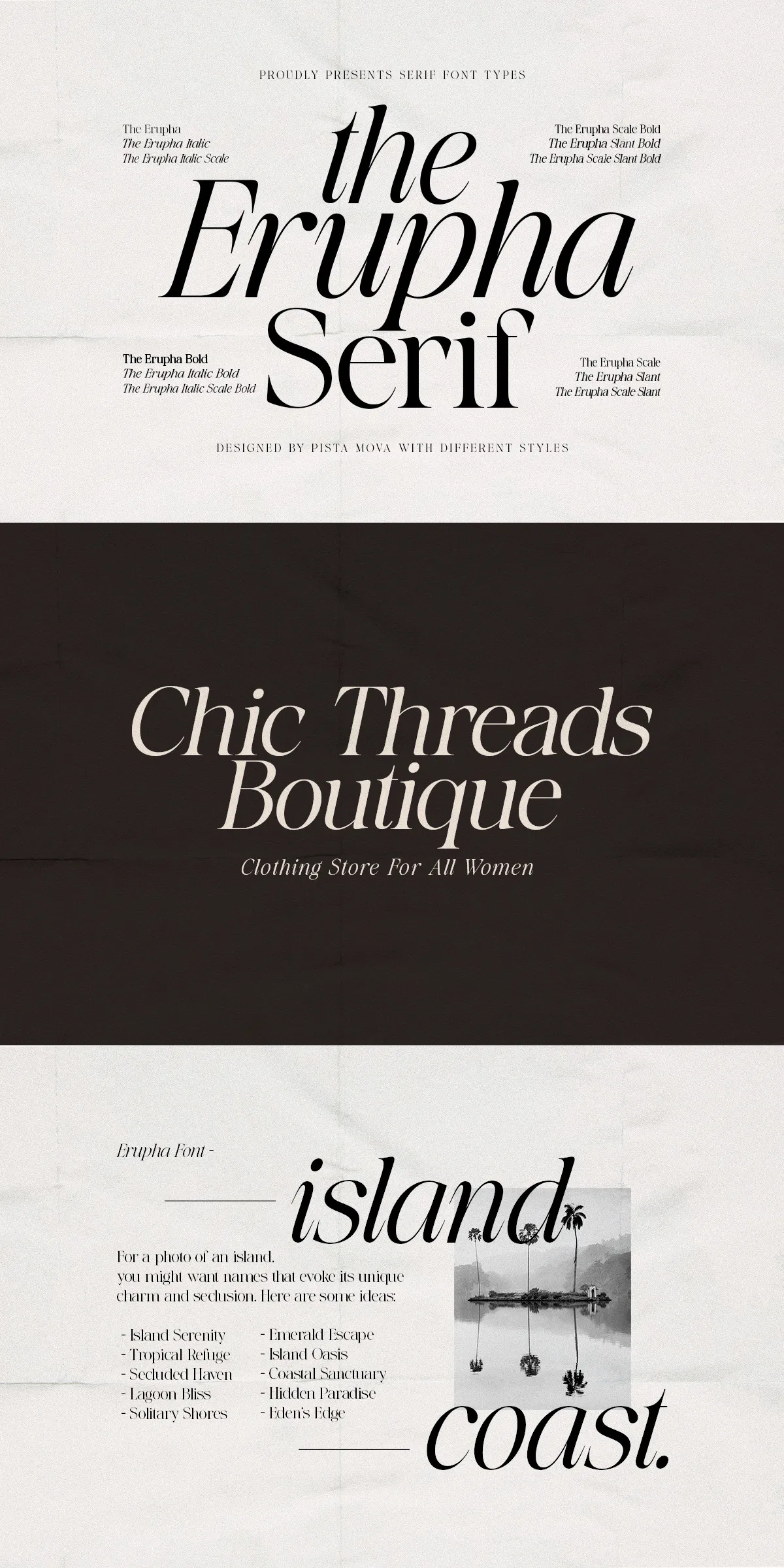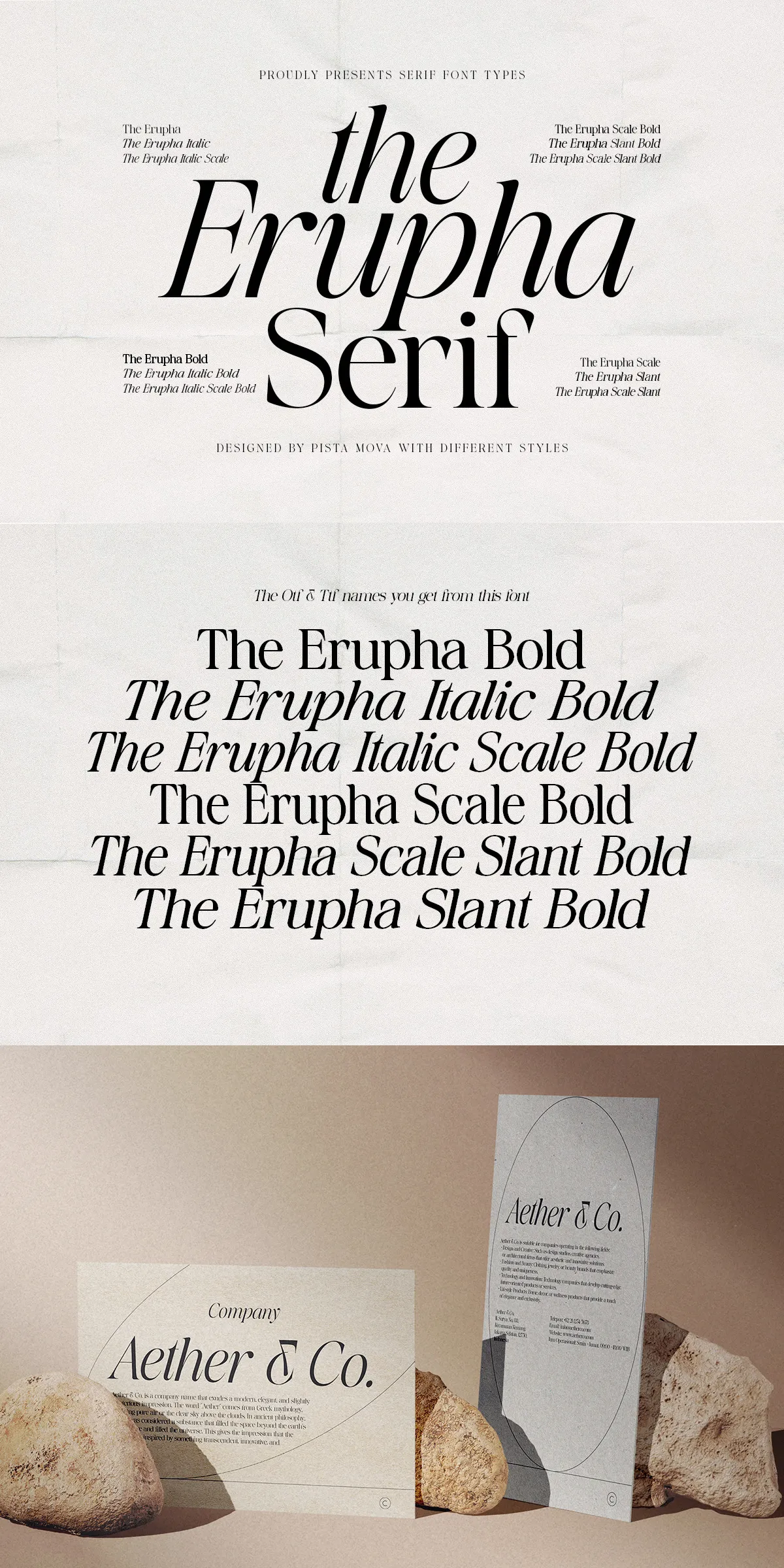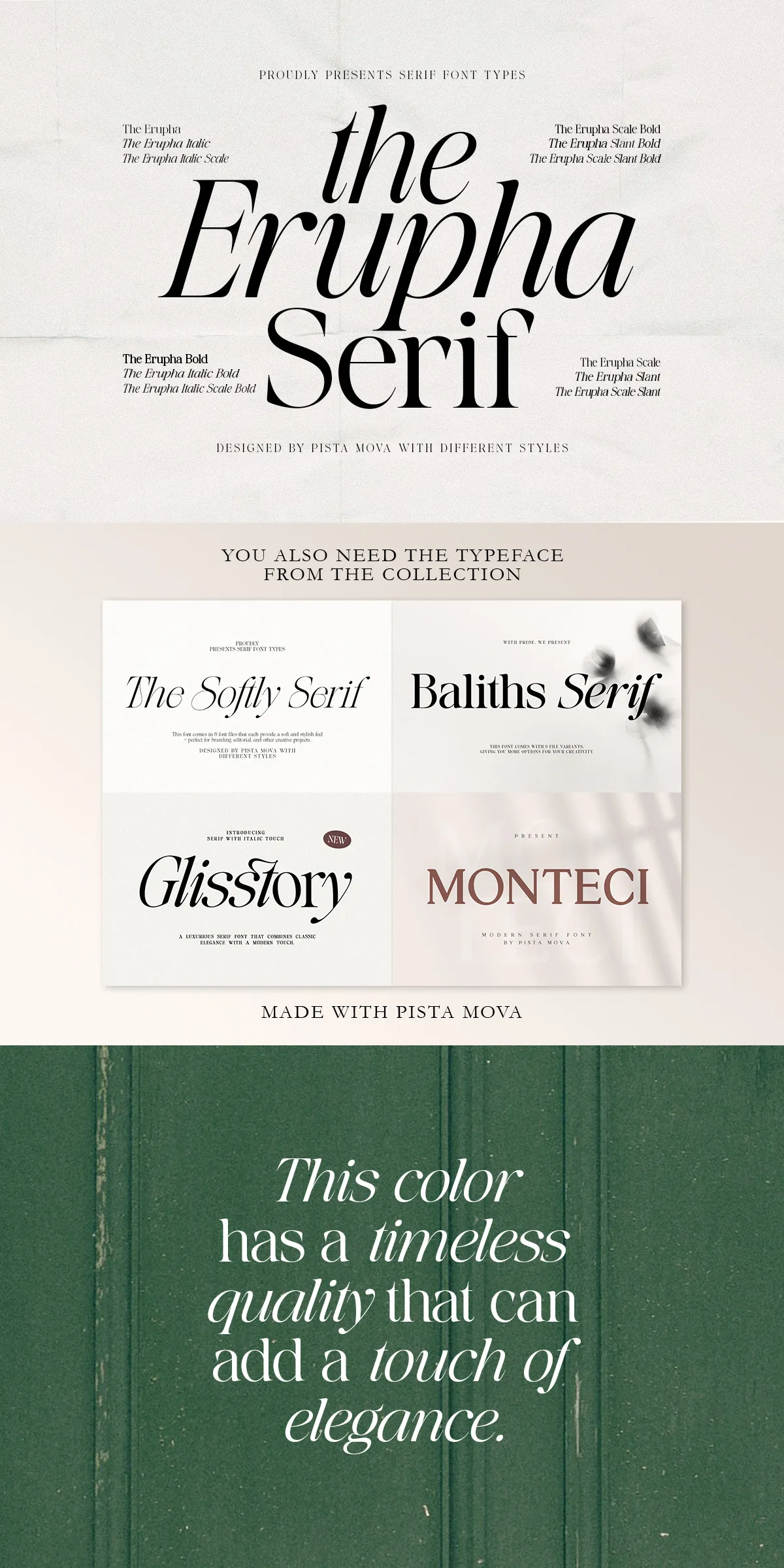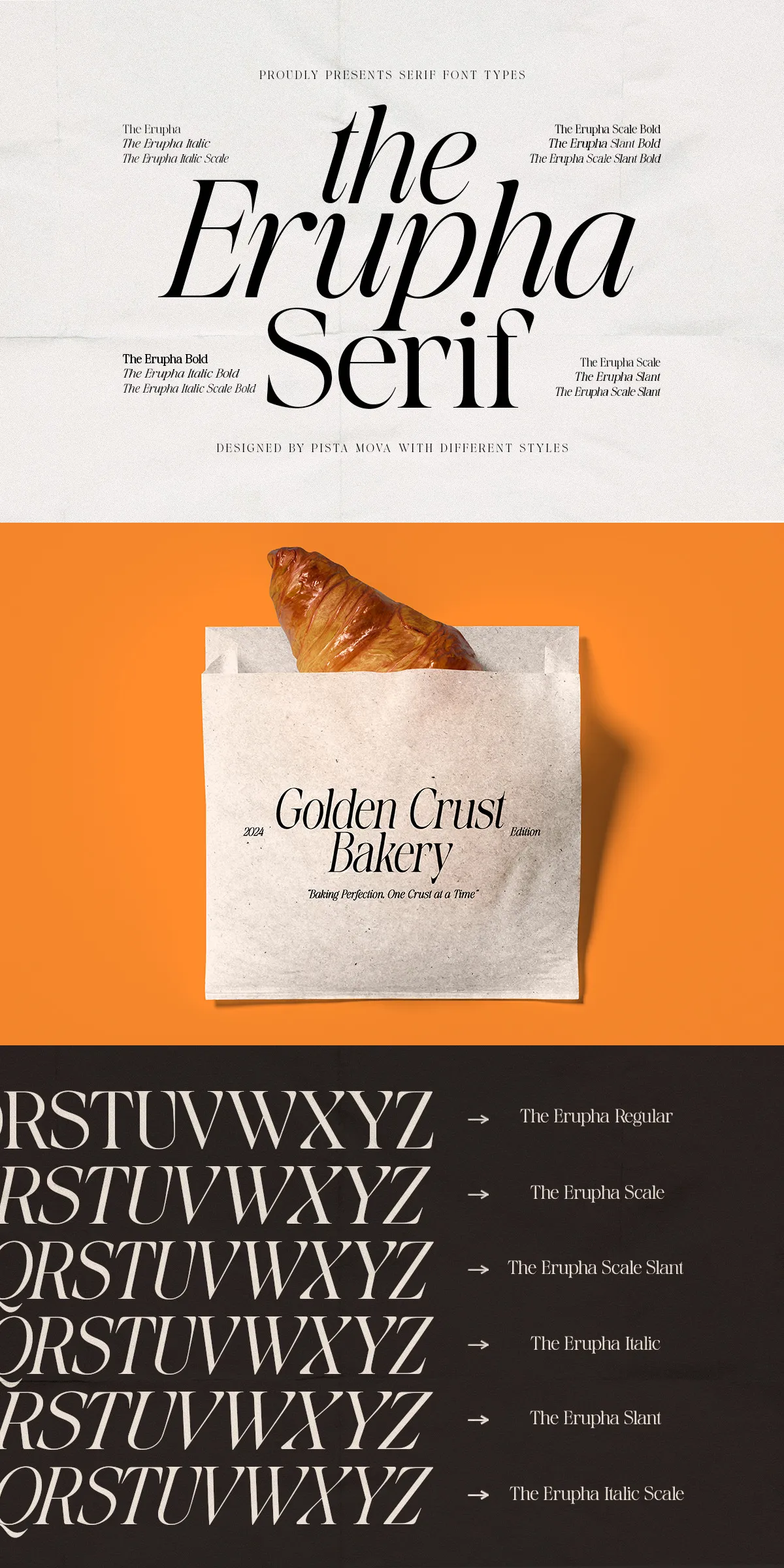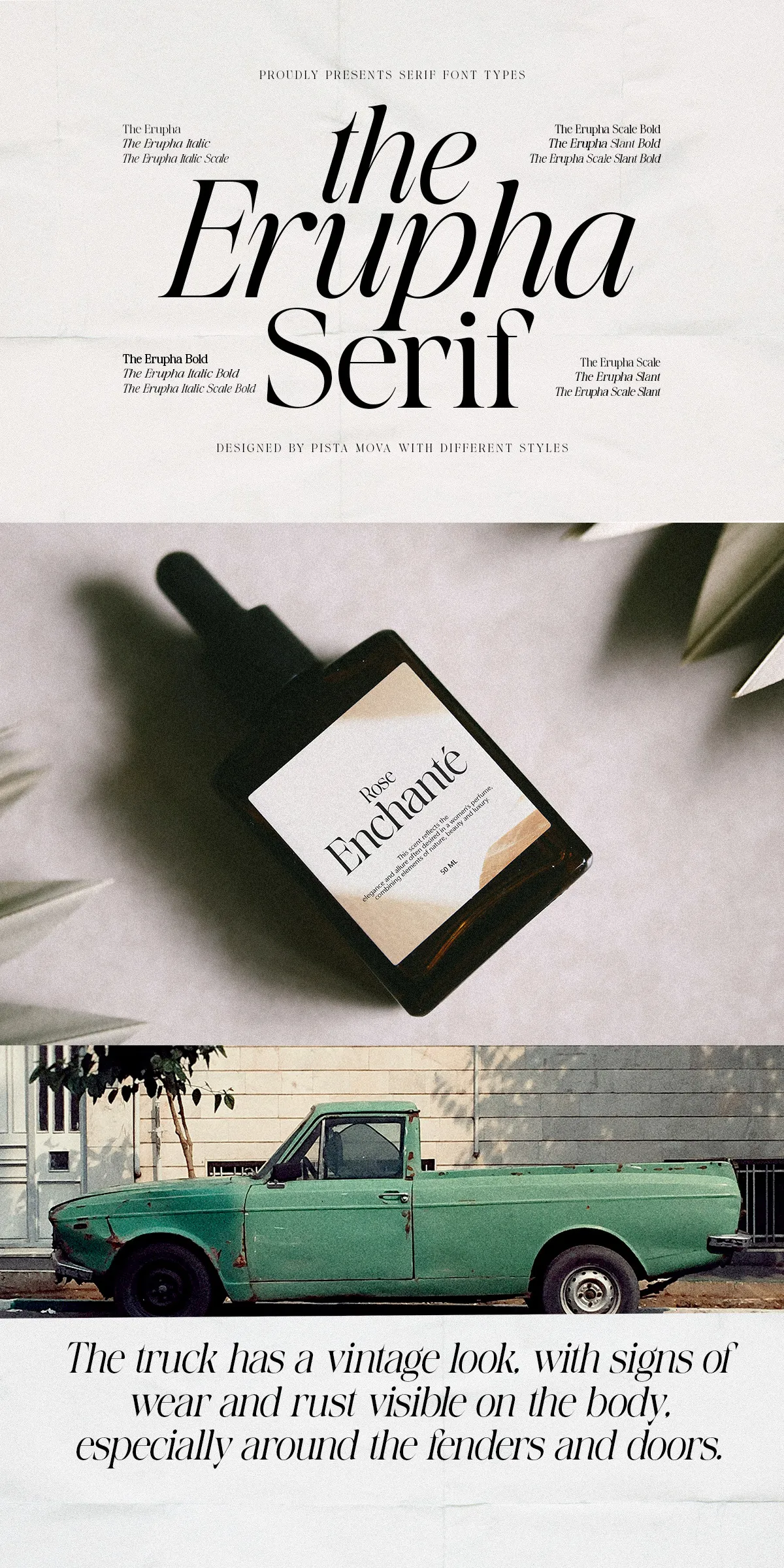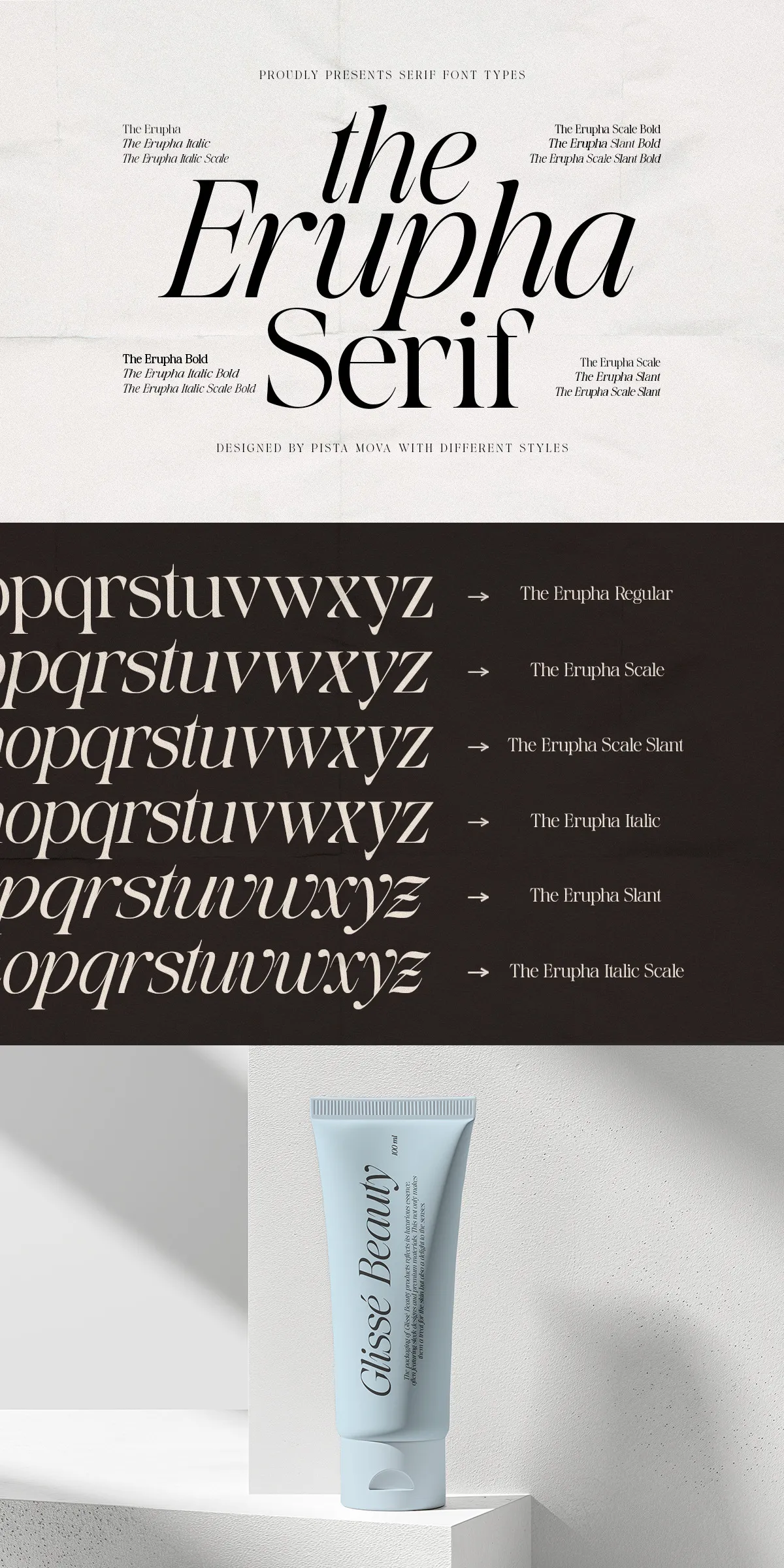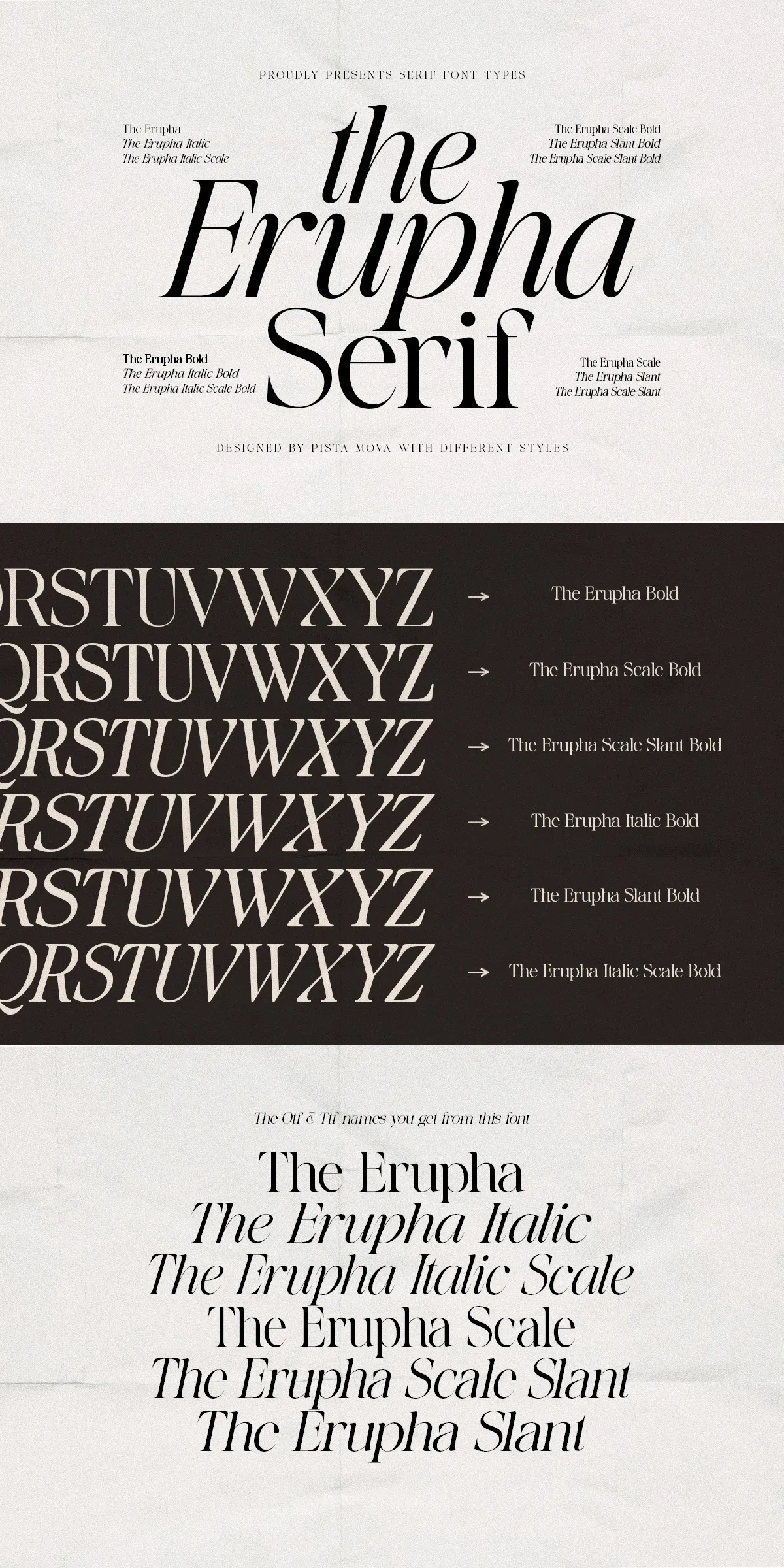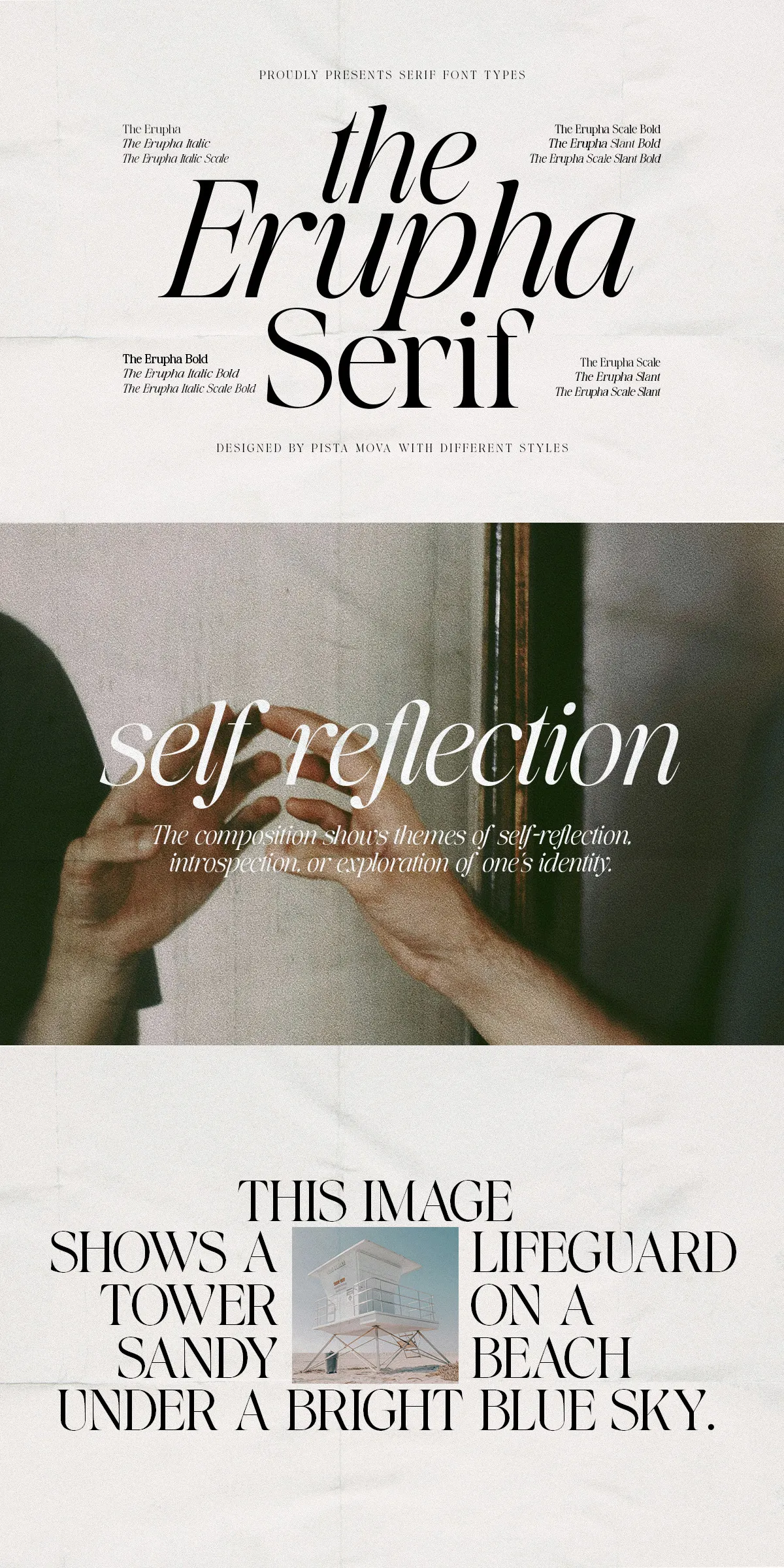
Step into a realm where classic tradition meets bold modernity—welcome to The Erupha, a serif typeface engineered for those who demand visual distinction without sacrificing refinement. This isn’t just another font; it’s a statement. With razor-sharp high-contrast strokes, fluid curves, and meticulously sculpted serifs, The Erupha redefines what a contemporary serif can be—graceful, powerful, and impossible to ignore.
Where Heritage Meets Contemporary Design
The Erupha draws deep inspiration from the golden era of letterform artistry but refuses to remain in the past. Every glyph has been reimagined for today’s dynamic visual landscape. The bold stress contrasts create visual tension that guides the eye naturally across lines, while the refined proportions ensure legibility remains paramount—even at small sizes. Whether you’re building a luxury brand identity, designing a premium magazine spread, or crafting a stunning website header, The Erupha commands attention with quiet confidence.
True Italic Design: More Than Just Slanting
Unlike many fonts that simply slant their regular weights, The Erupha features authentic, hand-designed italics. These are not afterthoughts—they are fully integrated companions to the upright forms. The italic variants boast dynamic flow, unique stroke variations, and carefully adjusted spacing, creating a harmonious rhythm that elevates your typography from functional to unforgettable. When used in quotes, captions, or emphasis, the italic adds a subtle pulse of movement and emotion.
Elegant Ligatures for Distinctive Lettering
Let your designs speak with personality. The Erupha includes a curated set of elegant ligatures that transform common letter pairs into artistic expressions. From the flowing connection between “fi” and “fl” to the refined join in “th,” each ligature is crafted to enhance readability while injecting visual flair. Use them to add a touch of bespoke craftsmanship to logos, headings, and featured text—where every word feels intentional.
Advanced OpenType Features for Creative Control
Take full command of your typography with a suite of powerful OpenType features. Access alternative characters, swash forms, stylistic sets, and discretionary ligatures—all within your design software. Whether you’re in Adobe InDesign, Illustrator, Figma, or a web environment, The Erupha adapts seamlessly, empowering you to experiment, refine, and perfect your message.
- Stylistic Sets: Choose from multiple alternate glyph styles for a truly customized look.
- Swash Alternates: Add dramatic flair to initials and opening letters.
- Discretionary Ligatures: Enhance readability and aesthetic coherence in long-form content.
- Small Caps & True Titling: Ideal for section headers, titles, and premium branding.
Designed for a Global Audience
The Erupha speaks the world. With support for over 90 languages, it includes extended Latin character sets with full diacritic coverage—perfect for European, Scandinavian, Eastern European, and global language usage. Whether you’re designing for Berlin, Tokyo, or Montreal, The Erupha ensures your message is not only beautiful but accessible.
Why The Erupha Stands Out in a Crowded Market
While countless fonts mimic the look of elegance, few earn it through substance. The Erupha delivers both: it’s not just visually striking—it’s technically precise, typographically intelligent, and emotionally resonant. It’s a typeface built for designers who don’t settle for average. From minimalist branding to high-end editorial design, The Erupha brings a rare balance of strength and subtlety.